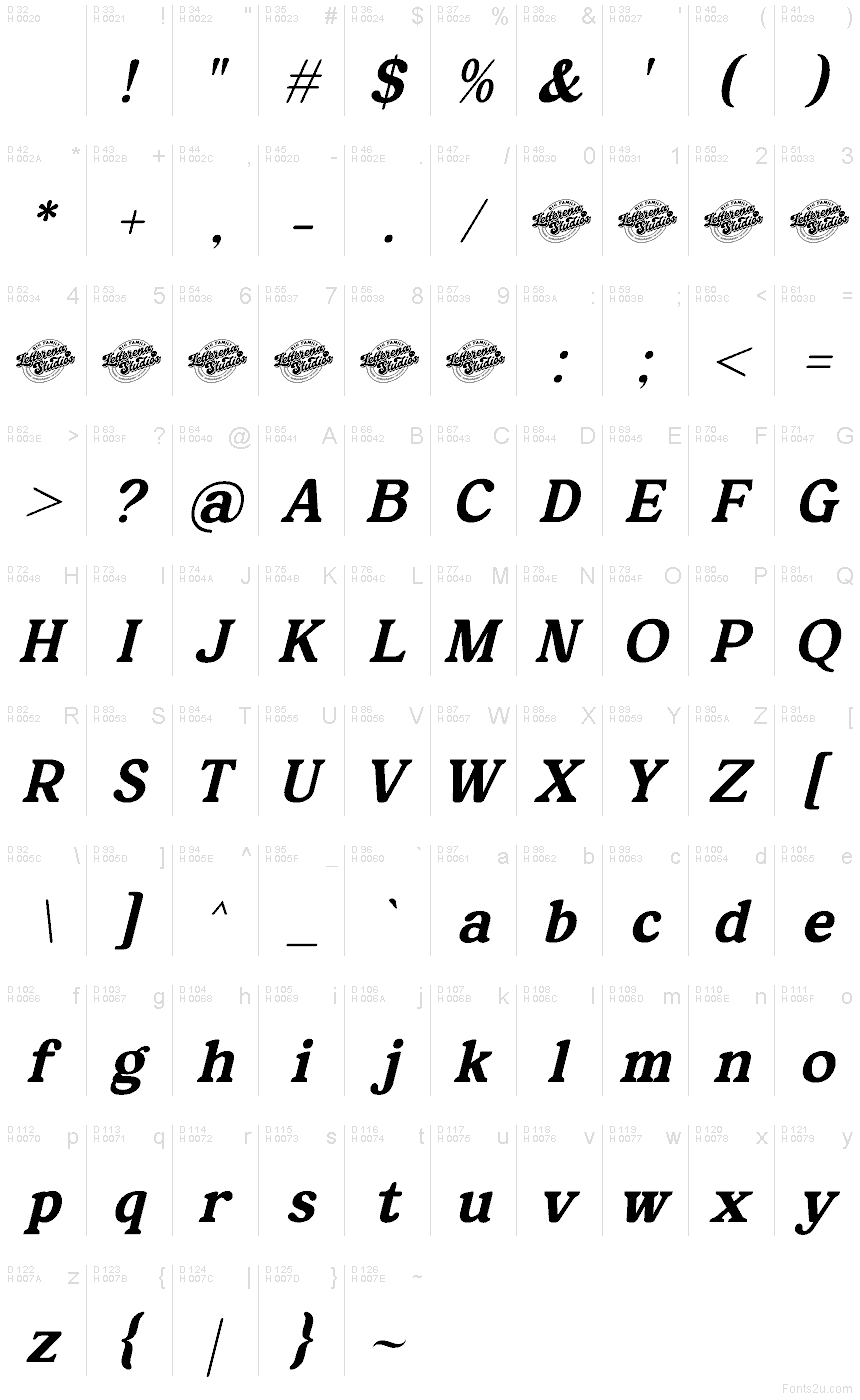
Harbor Nebula DEMO VERSION Italic
Harbor Nebula Italic font by Letterena Studios is a free italic serif typeface. Part of the Harbor Nebula family, it leans into a lively slant and inky, weighty strokes that feel both literary and luxurious. The sturdy wedge serifs anchor each word, while the smooth curves slip forward with a confident pull, giving headlines a sense of motion without getting fussy or ornamental.
Using Harbor Nebula Italic, you can bring drama and warmth to book covers, boutique logos, editorial titles, wine or candle labels, posters, and quote graphics. Its steady rhythm and generous spacing hold up at larger sizes yet remain readable in short lines. Pair this free font with a clean grotesk for body copy—or simply tighten tracking slightly for a moodier, denser look.